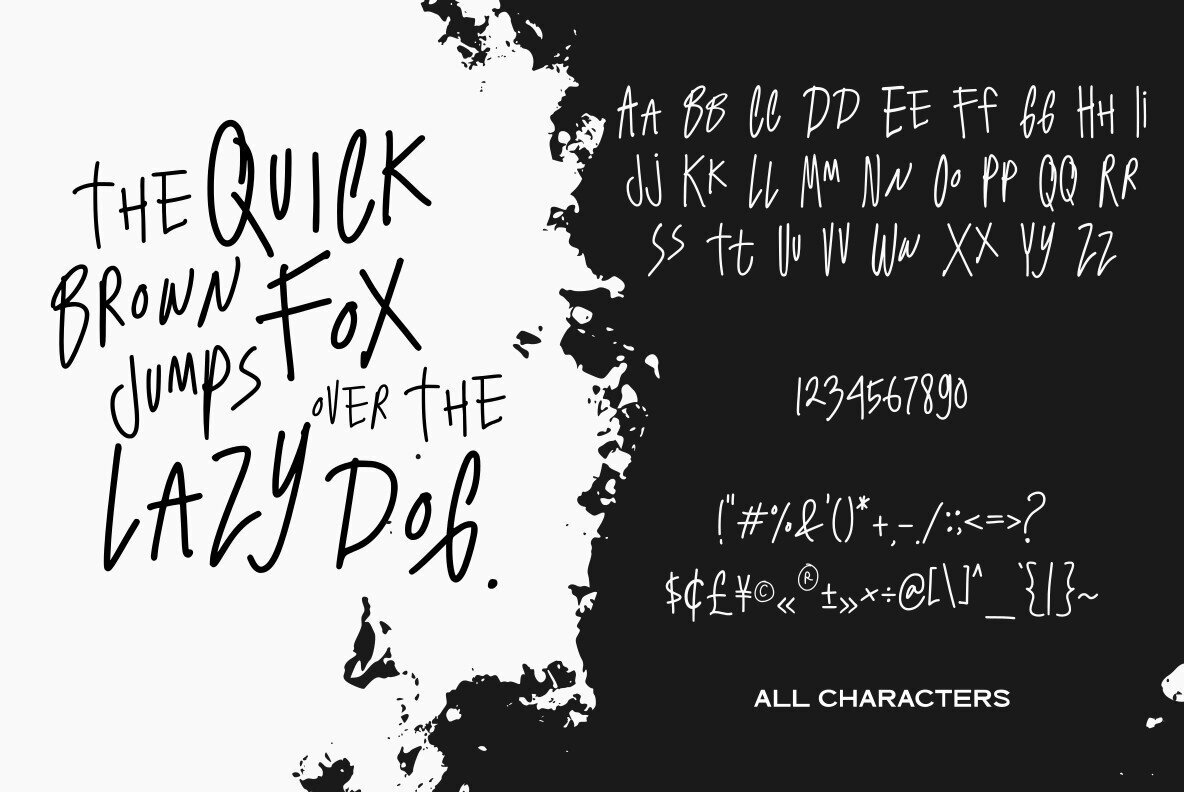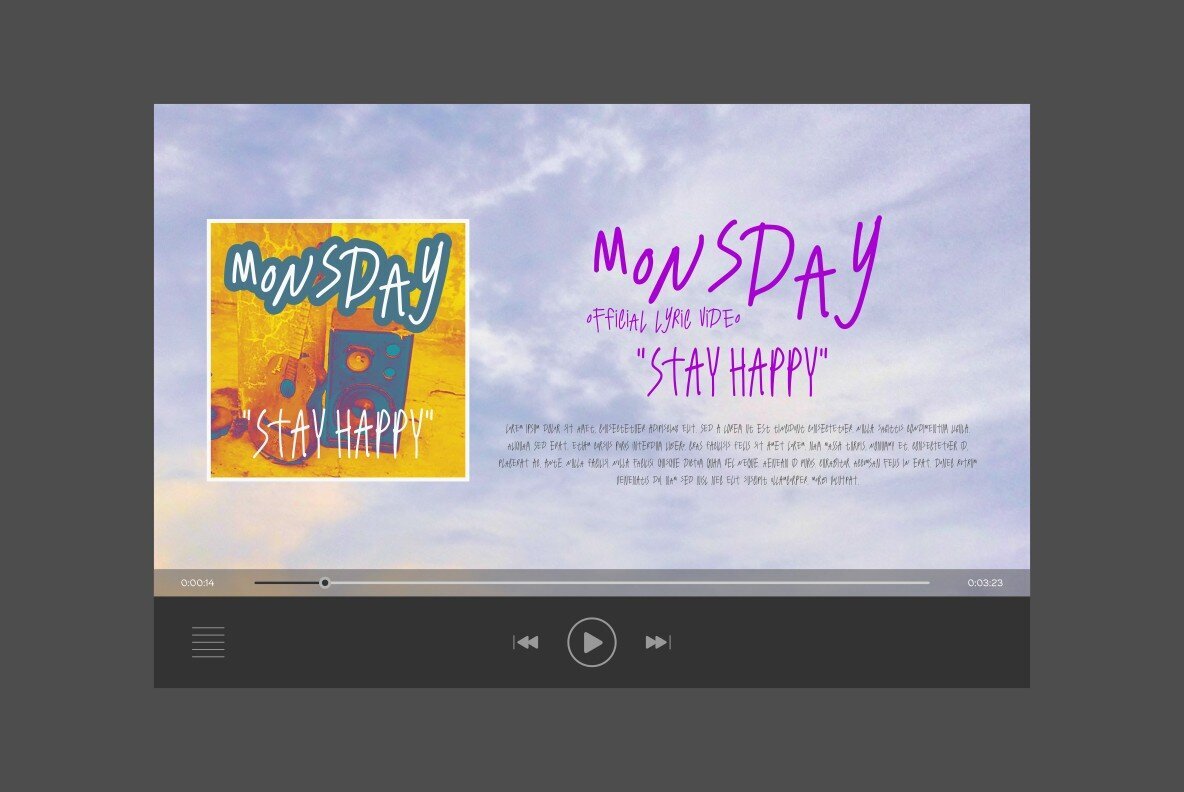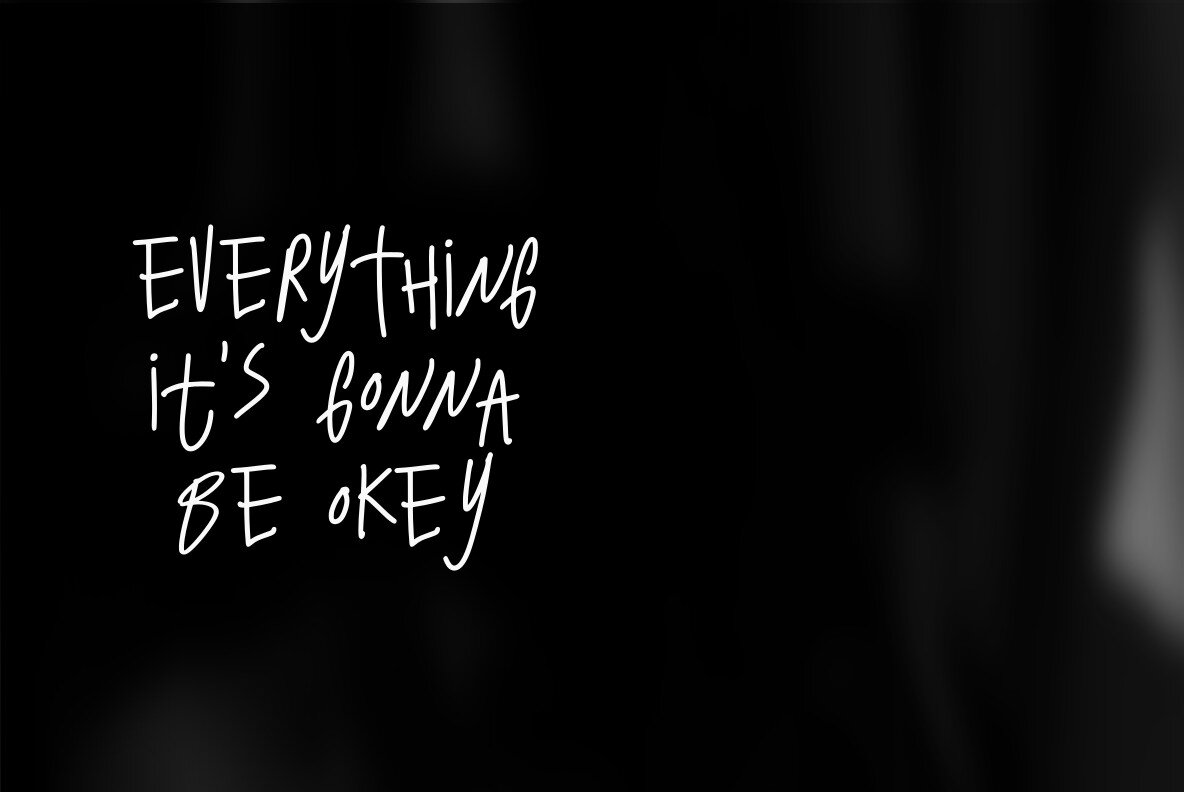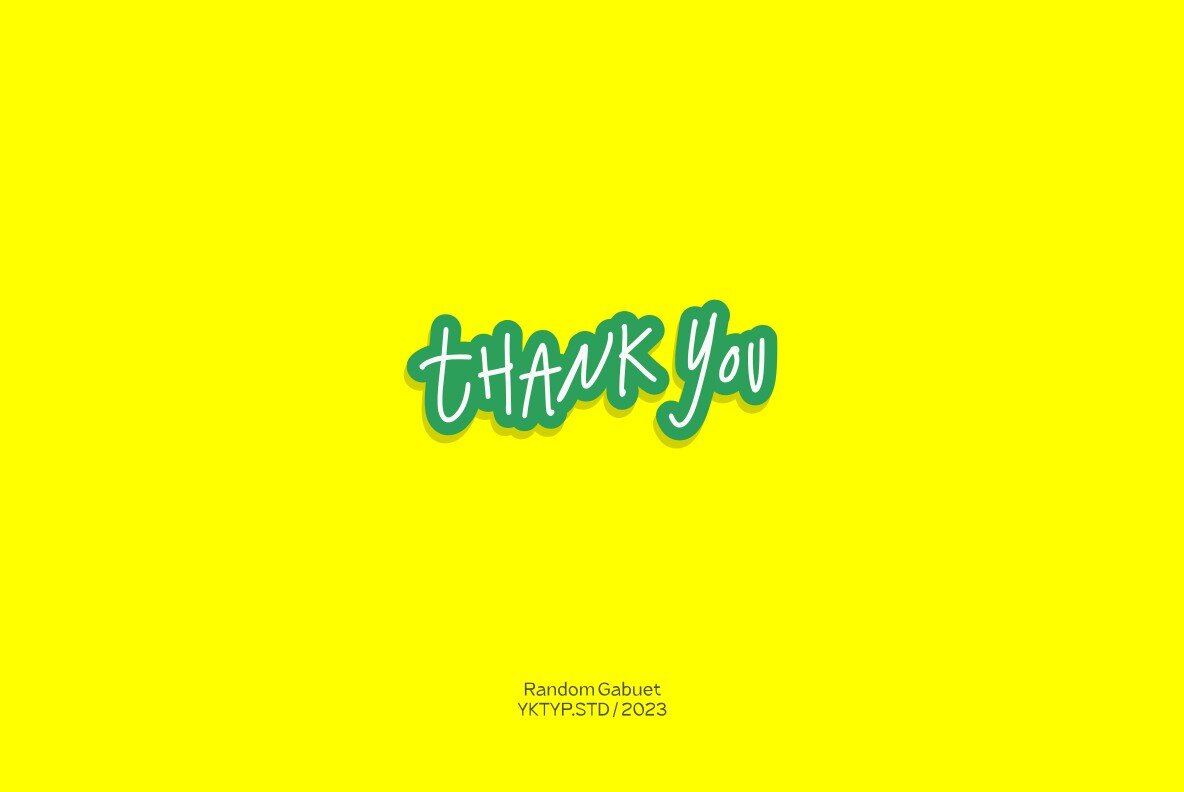
Random Gabuet Font
Random Gabuet Regular
Immerse in the artistic allure offered by Random Gabuet, our latest handwritten font innovation from avant-grade designer Yktyp Std. Balancing originality with utility, Random Gabuet is a compelling tool for graphic designers, marketing firms, and creatives that demand more than mediocrity. Its versatility makes it a vivid choice for caption quotes, video lyrics, packaging designs, and more, seamlessly transforming the mundane into a masterpiece. Revel in its unique charm as it redefines restaurant menus, uplifts book covers, and adds finesse to your social media advertising. With Random Gabuet, your design capabilities are only limited by your imagination.Unveiling Random Gabuet: The Ultimate Handwritten Font for Creatives